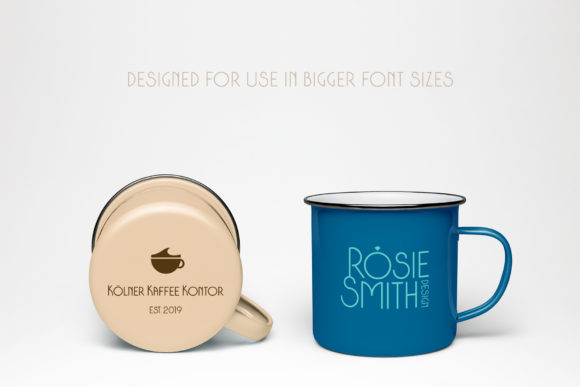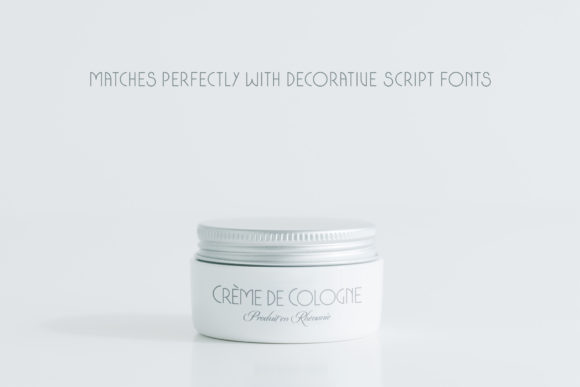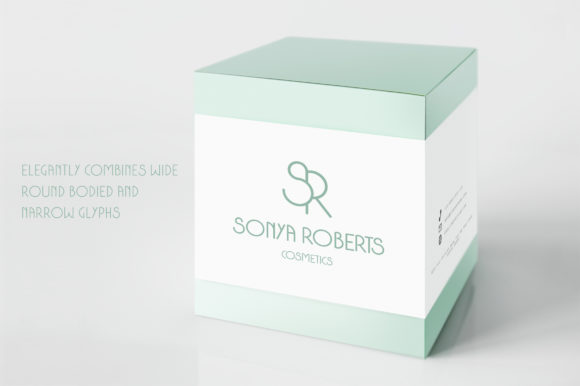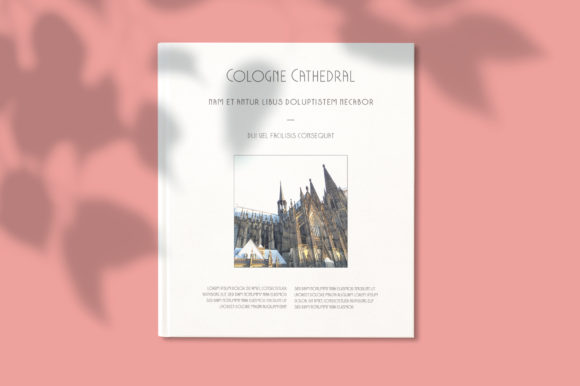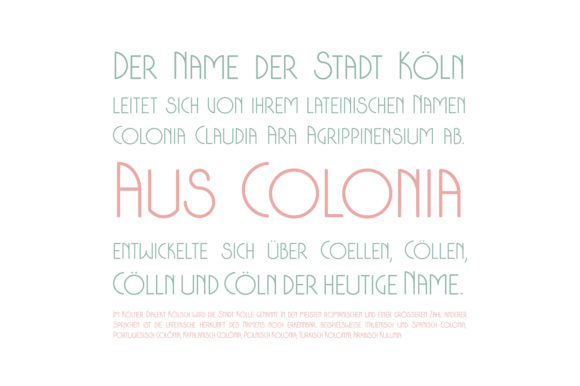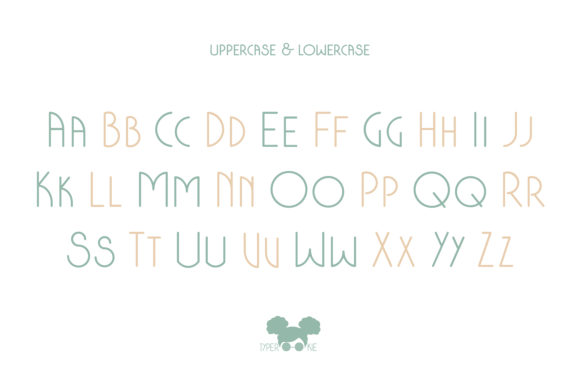
The Elegance of Colonia Deco: A Designer’s New Best Friend
I’ll never forget the time I was working on a luxury branding project for a high-end jewelry client. I had spent hours perfecting the logo, but something was off. The font I had chosen just wasn’t giving me that sophisticated, high-end feel I was going for. I scoured the internet for the perfect typeface, and that’s when I stumbled upon Colonia Deco. It was love at first sight! 💫
A Personal Review of Colonia Deco
As a designer, I’m always on the lookout for fonts that can elevate my work. Colonia Deco is definitely one of them. Here’s what I love about it:
- ✨ Elegant and sophisticated: Colonia Deco has a touch of vintage that gives it a unique charm.
- ✅ Versatile: It works perfectly for both digital and print designs.
- 💯 Highly legible: Even at small sizes, Colonia Deco remains clear and easy to read.
- 🎨 OpenType features: It comes with a range of stylistic alternates and glyphs to give your designs an extra boost.
Of course, no font is perfect, and Colonia Deco is no exception. Here are a few quirks to keep in mind:
- ⚠️ Limited use of bold weights: If you need a super bold font, Colonia Deco might not be the best choice.
- 🤔 Some characters may not work well in all contexts: For example, the ampersand (&) might look a bit wonky in certain combinations.
The Story Behind Colonia Deco
Colonia Deco was inspired by the art deco movement of the 1920s and 1930s. Its designer wanted to create a font that captured the elegance and sophistication of that era, while still feeling modern and fresh. The result is a typeface that’s perfect for luxury brands, high-end products, and any design that needs a touch of vintage glamour.
| Font Name | Colonia Deco Font |
| Author | typerookie |
| What makes Colonia Deco unique? | Colonia Deco’s unique blend of vintage charm and modern sophistication makes it perfect for luxury designs. |
| Is Colonia Deco suitable for body text? | While Colonia Deco is highly legible, it’s best used for headlines and titles. For body text, you might want to pair it with a more traditional sans-serif or serif font. |